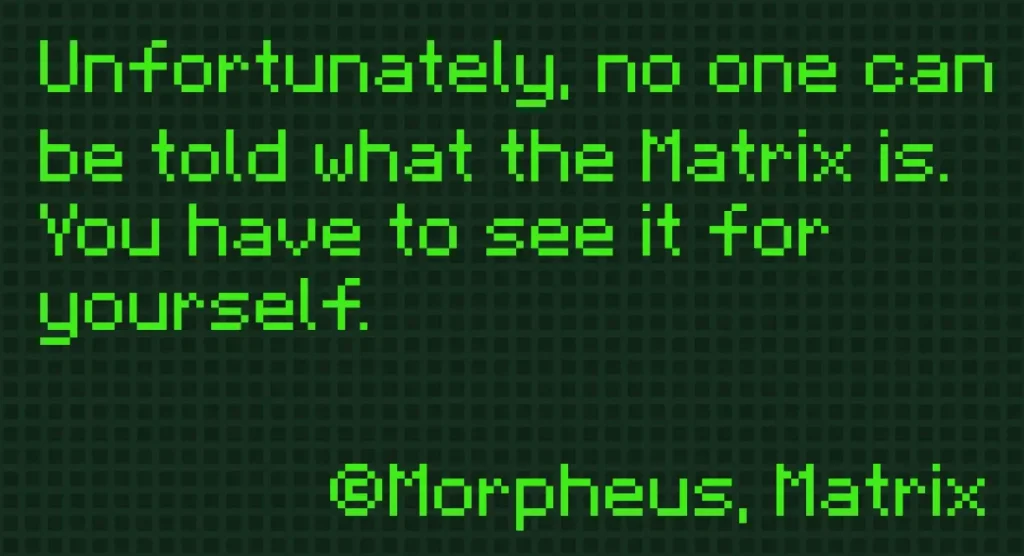
This is a 100% free Minecraft-inspired pixel font that can be used for both commercial and personal use.
This font brings a retro, block-like character to text, suitable for designs needing a nostalgic or gaming-inspired feel.